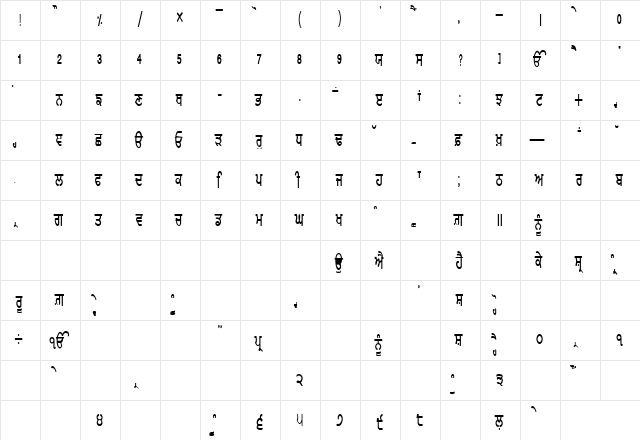
GurmukhiLys 010 Condensed Normal
Design Context for GurmukhiLys 010 Condensed Typeface
GurmukhiLys 010 Condensed takes a measured approach to typography — its balanced proportions and neutral character make it a reliable workhorse for both digital and print work. Its narrow stance lets it pack a punch even in space-constrained designs.